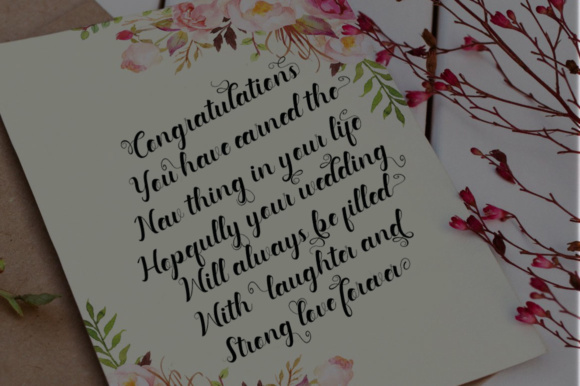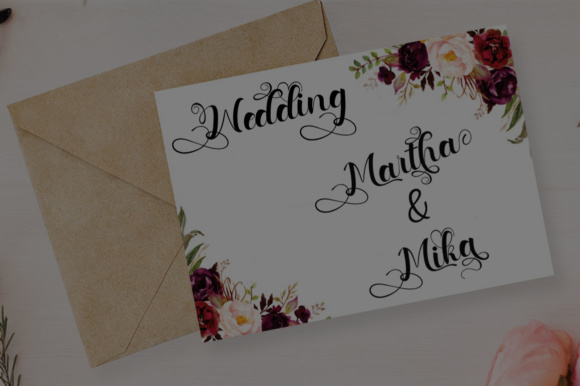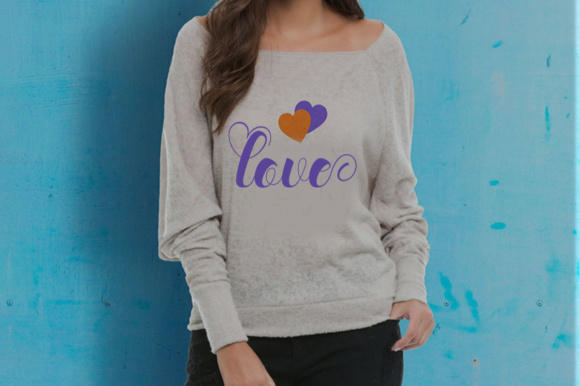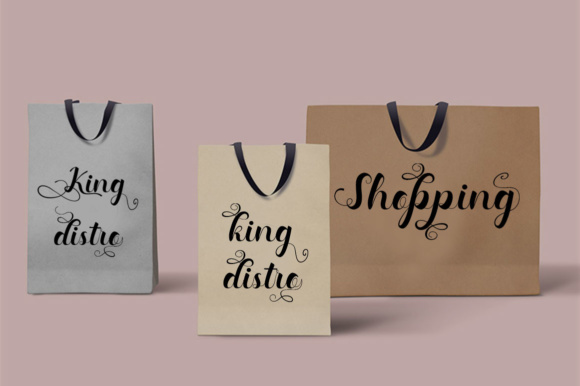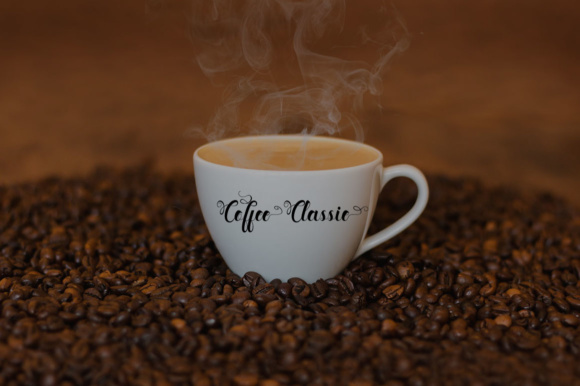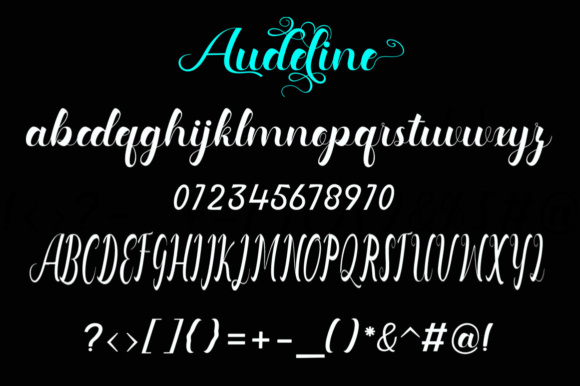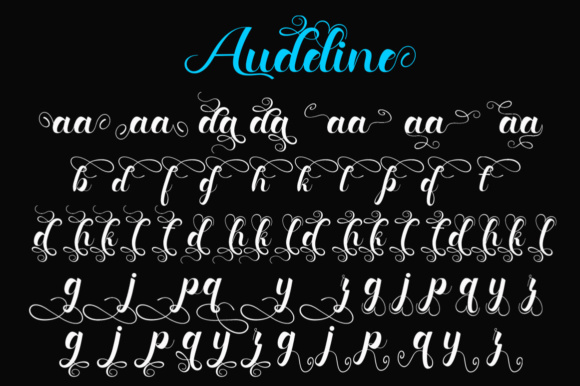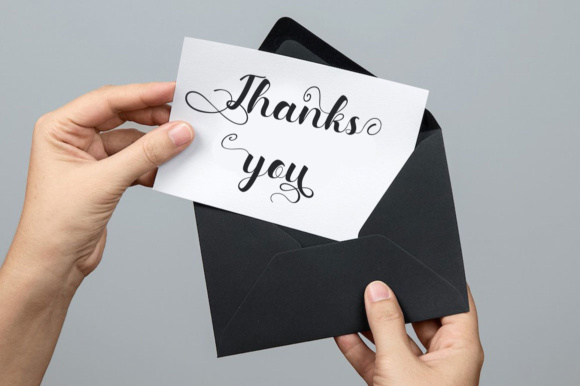
Audeline Font
Audeline was designed by handwriting and it has modern and unique forms of calligraphy. The writing style is very natural. Audeline has a very unique style of calligraphy which makes it very suitable for use in the work of modern design.
Audeline can be used for various purposes such as headings, logos, wedding invitations, t-shirts, letterheads and much more!